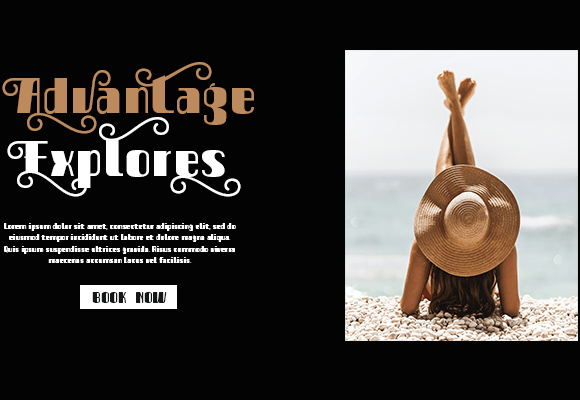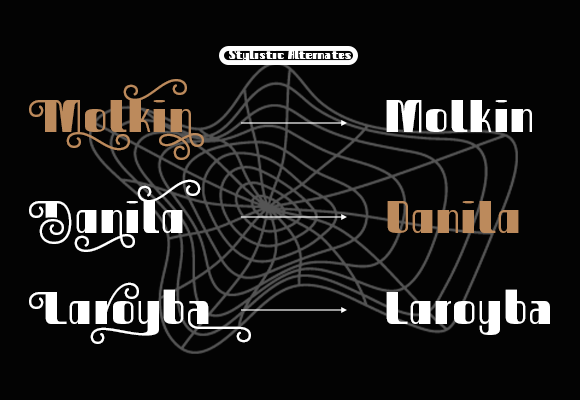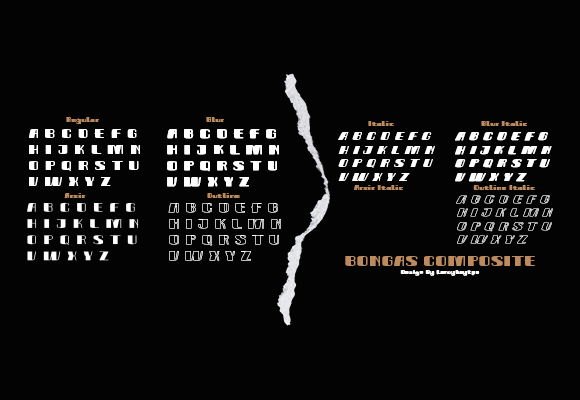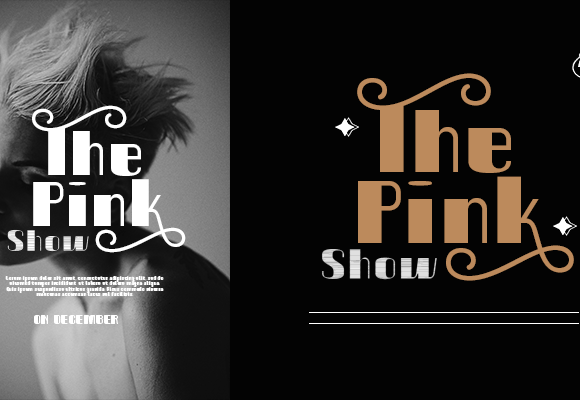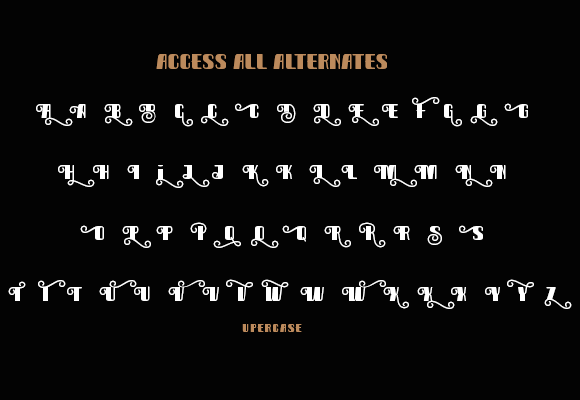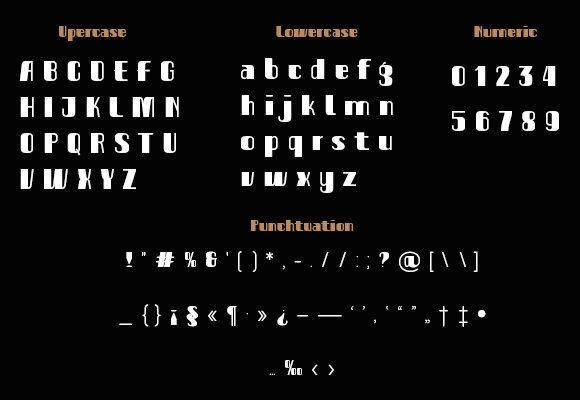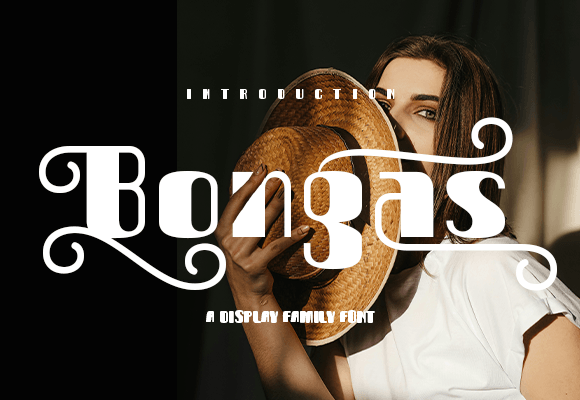
Introducing Bongas Font: Elevate Your Designs with Elegance and Boldness
In the world of typography, a font can make or break a design. It’s the foundation upon which creativity is built, and the right choice can elevate a project from ordinary to extraordinary. Meet Bongas, a display font family that captivates with the beauty of its bold and thin line contrasts, creating visual harmony like no other. Designed with meticulous attention to detail, Bongas features unique, mesmerizing curves in every alternate, adding a distinctive touch to all your designs.
The Art of Contrast: Bold and Thin Strokes
Bongas boasts a stunning combination of bold and thin strokes that strikes a balance between elegance and strength. This contrast is not just visually appealing; it’s also versatile, making it perfect for a wide range of design applications. Whether you’re working on a luxury brand logo, a sophisticated editorial piece, or a bold advertising campaign, Bongas provides the perfect blend of refinement and impact.
Unique Alternate Curves: A Touch of Luxury
What sets Bongas apart from other font families is its artistic alternates. These unique curves add a luxurious and personal feel to your designs, allowing you to create something truly bespoke. With Bongas, you can infuse your projects with a level of sophistication and elegance that’s hard to achieve with standard fonts. Every alternate is carefully crafted to provide a distinctive touch, making your designs stand out in a crowded creative landscape.
Flexibility at Its Finest: Multiple Styles
Bongas understands that designers need flexibility to bring their vision to life. That’s why this font family comes in a variety of styles, including regular, italic, outline, blur, and shaded (arsir). Whether you’re designing a sleek and modern website, a vintage-inspired poster, or a bold social media graphic, Bongas has the perfect style to match your creative needs. This range of options ensures that you can use Bongas across multiple projects, making it a valuable addition to your font collection.
Transform Your Designs with Bongas
With Bongas, you can transform your creative projects in ways you never thought possible. This font family perfectly balances boldness and elegance, making it ideal for designers who want to push the boundaries of their work. Whether you’re a seasoned professional or just starting out, Bongas provides the tools you need to create something truly unforgettable.
Why Choose Bongas?
• Bold & Thin Contrast: A unique blend of bold and thin strokes that adds depth and visual interest to your designs.
• Unique Alternate Curves: Artistic alternates that add a touch of luxury and sophistication to your projects.
• Various Styles: A range of styles to suit every design need, from regular and italic to outline, blur, and shaded.
• Elegance and Strength: A perfect balance of refinement and impact, making Bongas suitable for a wide range of design applications.
Bongas is more than just a font – it’s a design experience. With its bold and thin line contrasts, unique alternate curves, and range of styles, this font family has the power to transform your creative projects. Whether you’re a designer, crafter, or simply someone who appreciates the art of typography, Bongas is an essential addition to your toolkit. So why settle for ordinary when you can create something extraordinary with Bongas?